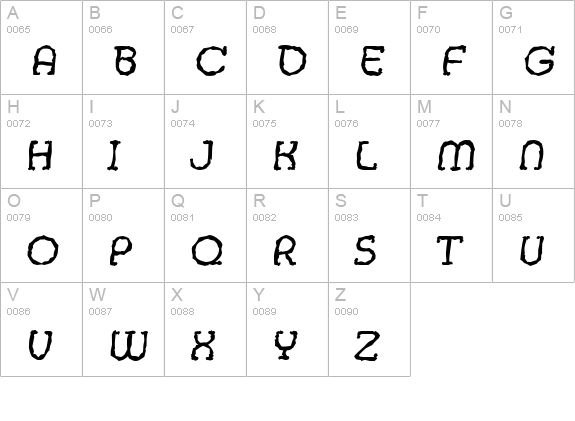
MexicoRandom-Italic Font Details
MexicoRandom-Italic is a distinctive, italic variant in the MexicoRandom typeface family \xE2\x80\x94 well suited to design and typography projects.
MexicoRandom-Italic font is a stunning display typeface that exudes elegance and creativity. The italicized design adds a touch of sophistication to any project, making it perfect for headlines, quotes, and branding materials. The unique and eye-catching letterforms of MexicoRandom-Italic will surely captivate your audience and leave a lasting impression. Best of all, MexicoRandom-Italic font is available for free download at FontsMarket.com. This means you can easily access this stylish font and use it in your designs without any cost. Don't miss out on this fantastic opportunity to enhance your projects with the beauty and charm of MexicoRandom-Italic font. Download it now and let your creativity shine!